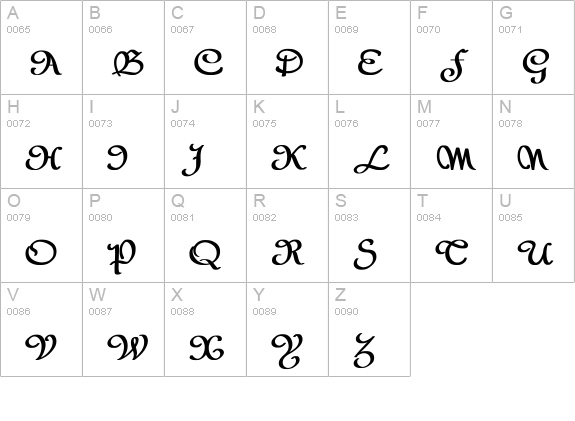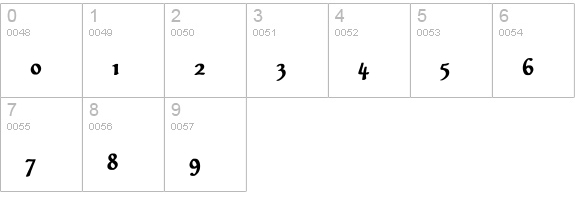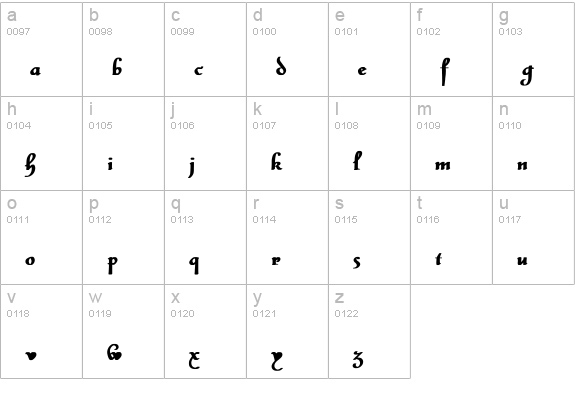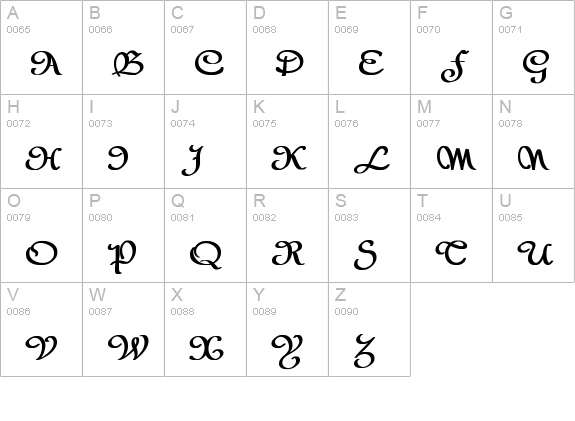
Civitype Bold is a strong, high-contrast variant in the Civitype typeface family \xE2\x80\x94 well suited to headlines, attention-grabbing titles, and strong calls-to-action.
Civitype Bold font is a striking and modern typeface that exudes confidence and sophistication. With its bold and impactful design, this font is perfect for making a strong statement in your designs. The sleek lines and sharp edges give it a contemporary feel, making it ideal for a wide range of projects. What's even better is that Civitype Bold font is available for free download at FontsMarket.com. This means you can easily access this eye-catching font to elevate your designs without any cost. Whether you're working on branding, advertising, or any other creative project, Civitype Bold font is sure to make a lasting impression. Don't miss out on this opportunity to enhance your designs with this stylish and versatile typeface.